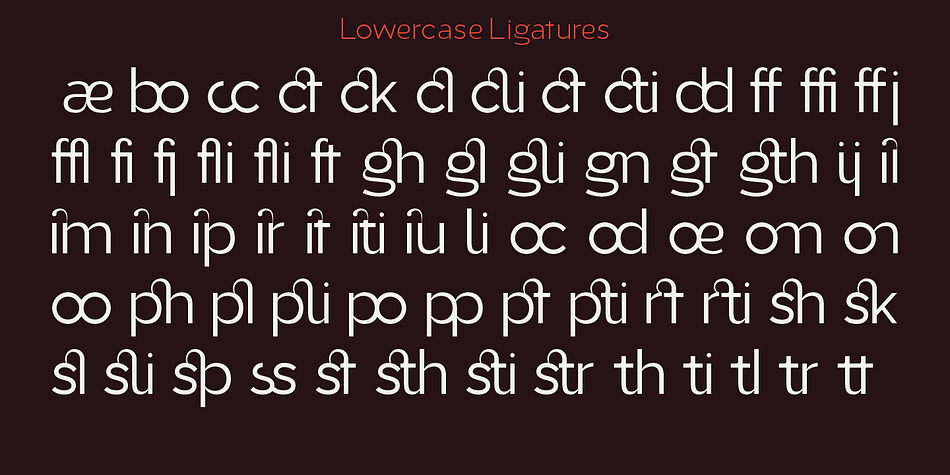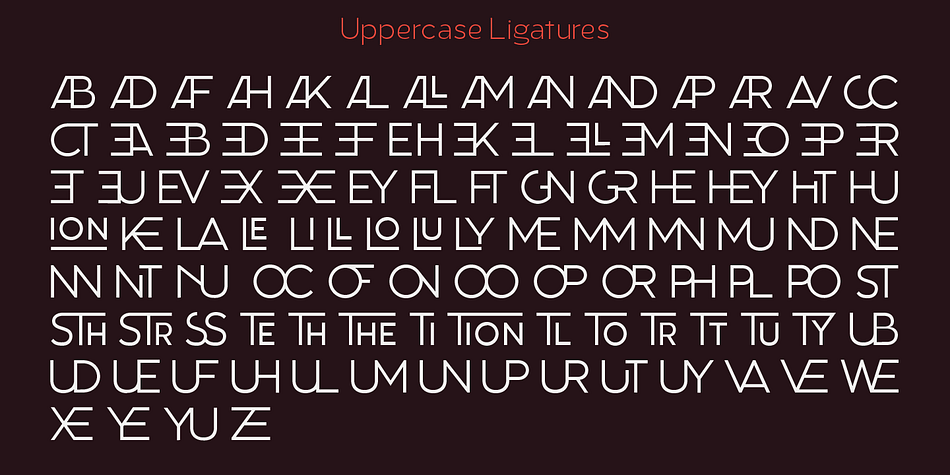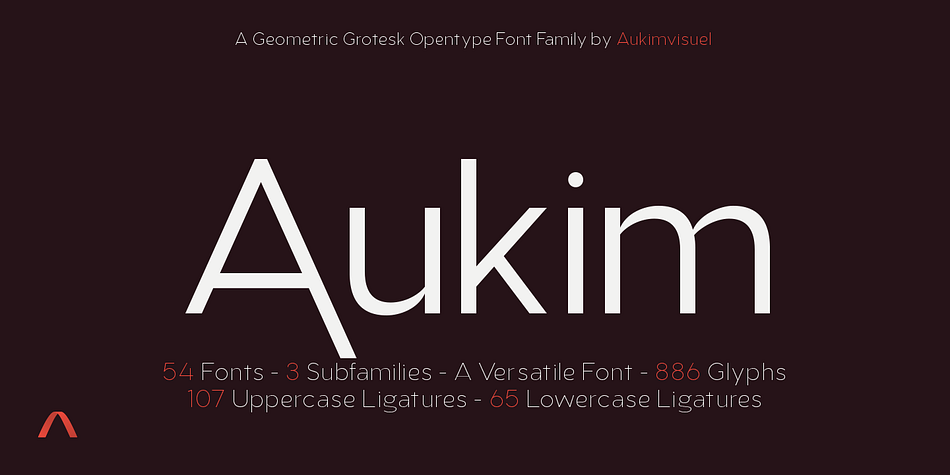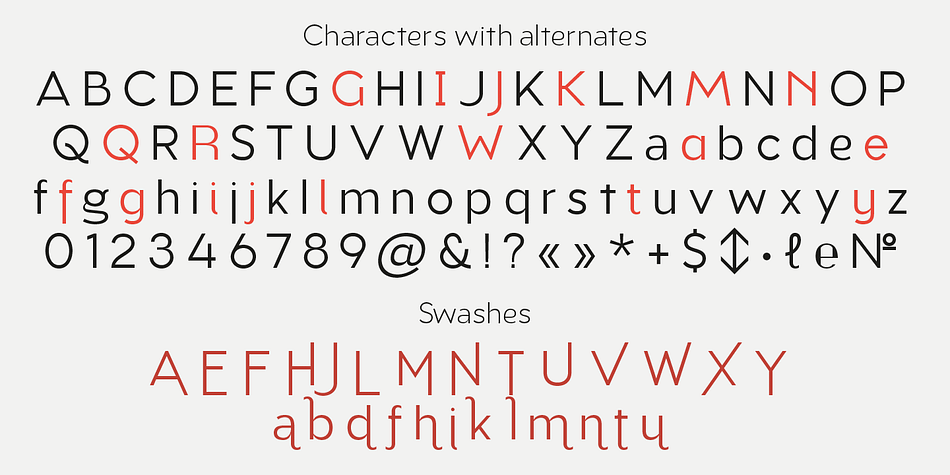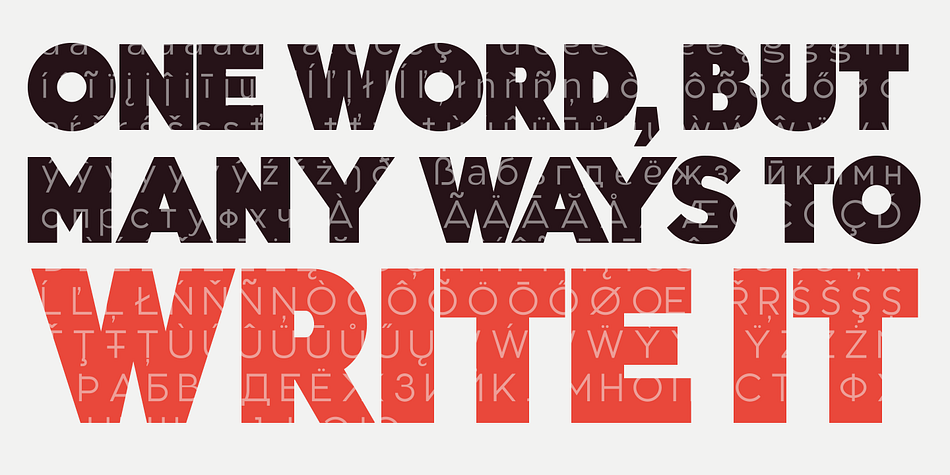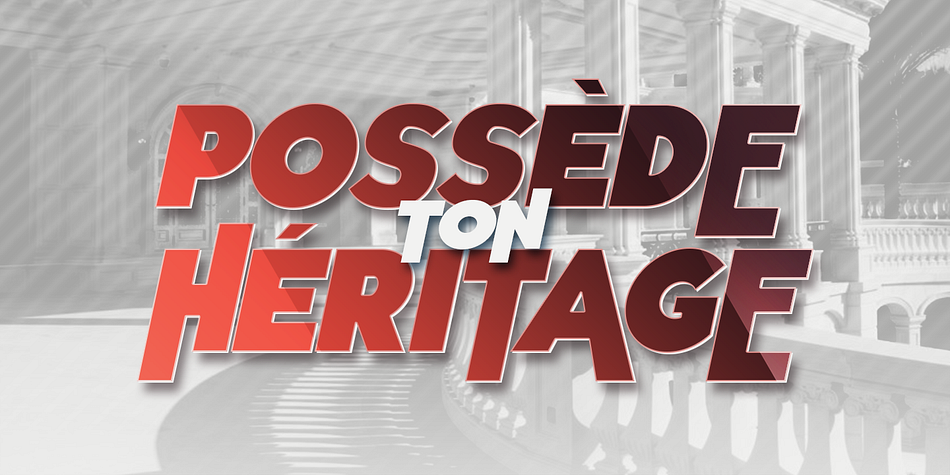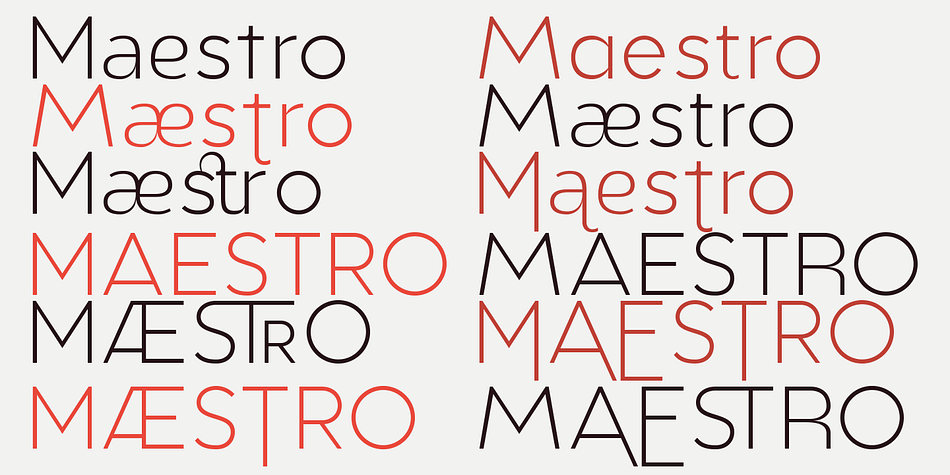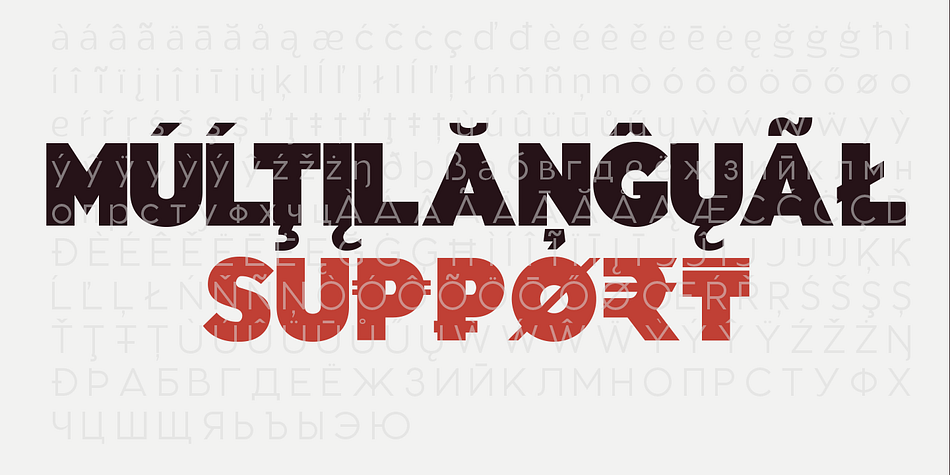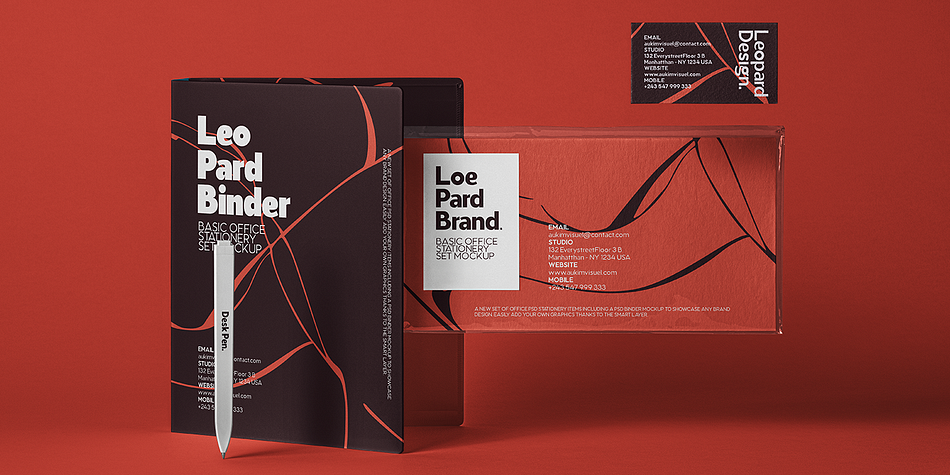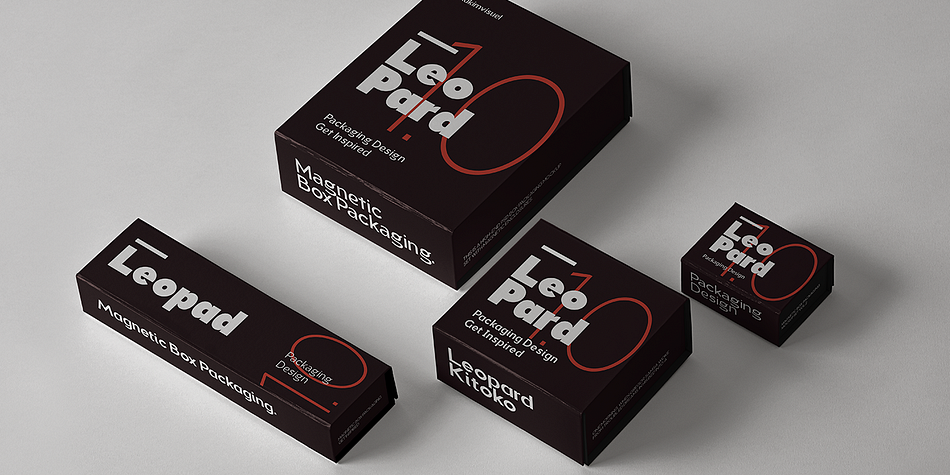
Aukim
Aukim is a sans serif font family. This typeface has fifty-four styles and was published by Aukimvisuel.
Aukim is an exceptional, unique and ligature-rich font that gives a new look to your texts. It is a more text-oriented font and thanks to its OpenType features, it becomes versatile.
It is available in 3 sub-families (condensed, normal and extended) for a total of 54 fonts. There are 9 weights with their real italics. It has 886 glyphs, 107 uppercase and 65 lowercase ligatures per font. It also offers a wide range of languages, from Latin to Cyrillic, as well as powerful OpenType features such as meticulously and professionally maintained kerning, stylistic variations, swashes, highly distinctive ligatures, old-fashioned tabular figures, fractions, denominators, superscripts, unlimited subscripts, arrows and much more to satisfy the most demanding professionals.
On the one hand, it has rounded curves with very open endings that make this font family noble, friendly and contemporary and on the other hand very useful for writing titles on any medium. Perfectly suitable for graphic design and any display use. It could easily work for web, signage, corporate design as well as editorial design.
Aukim is a cool, wonderful, elegant, bold and fun display font. It can easily be paired with an incredibly wide range of projects, so add it to your creative ideas and notice how it makes them stand out!